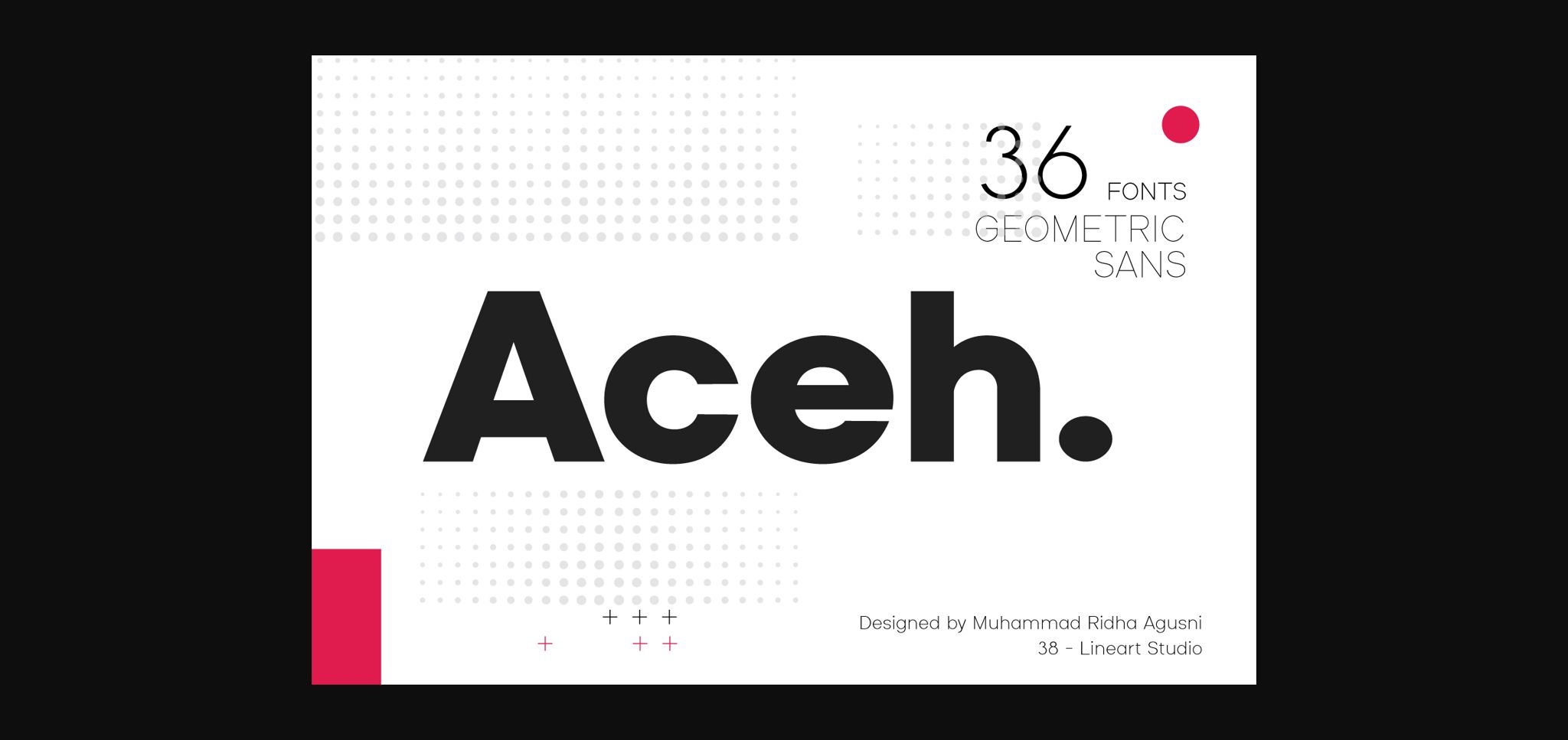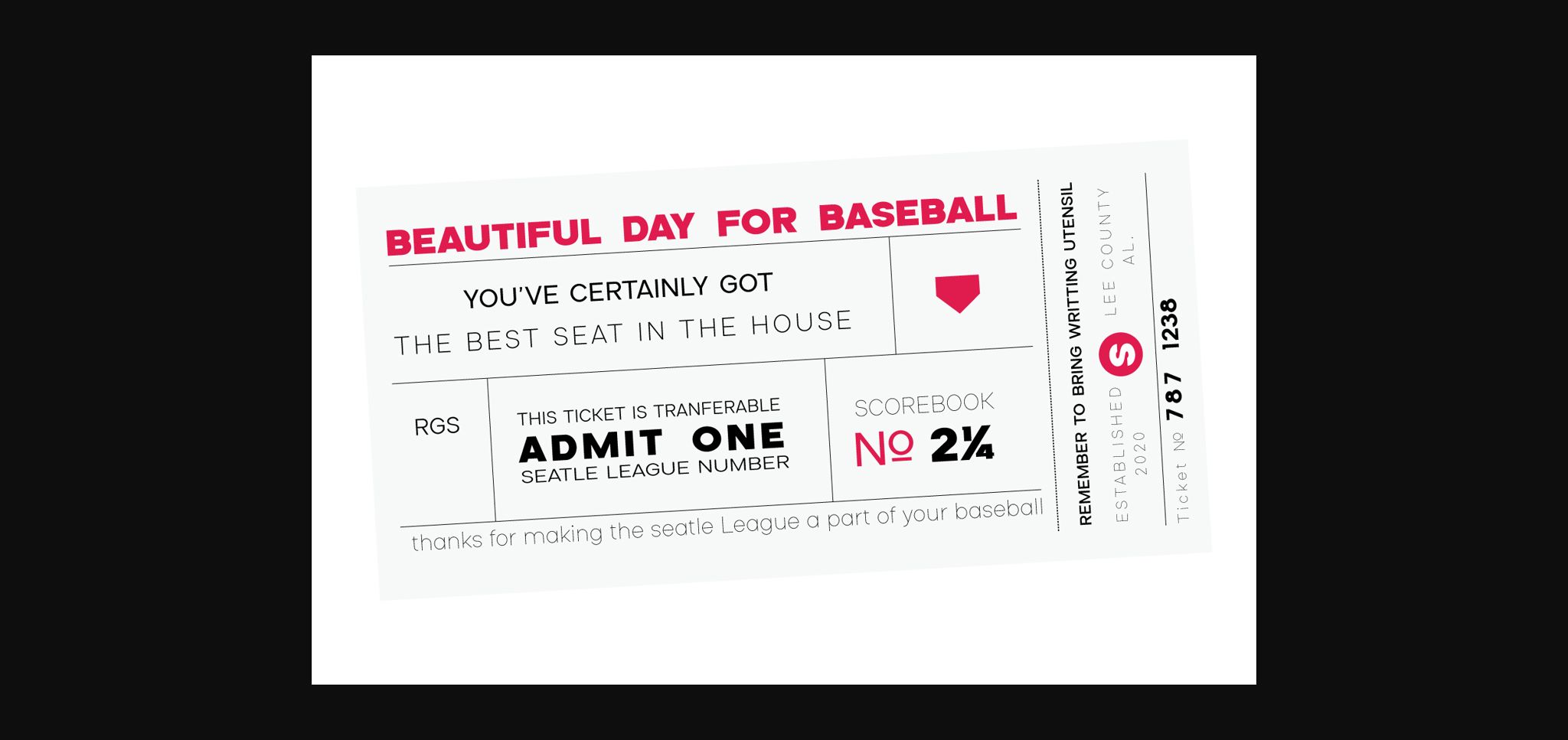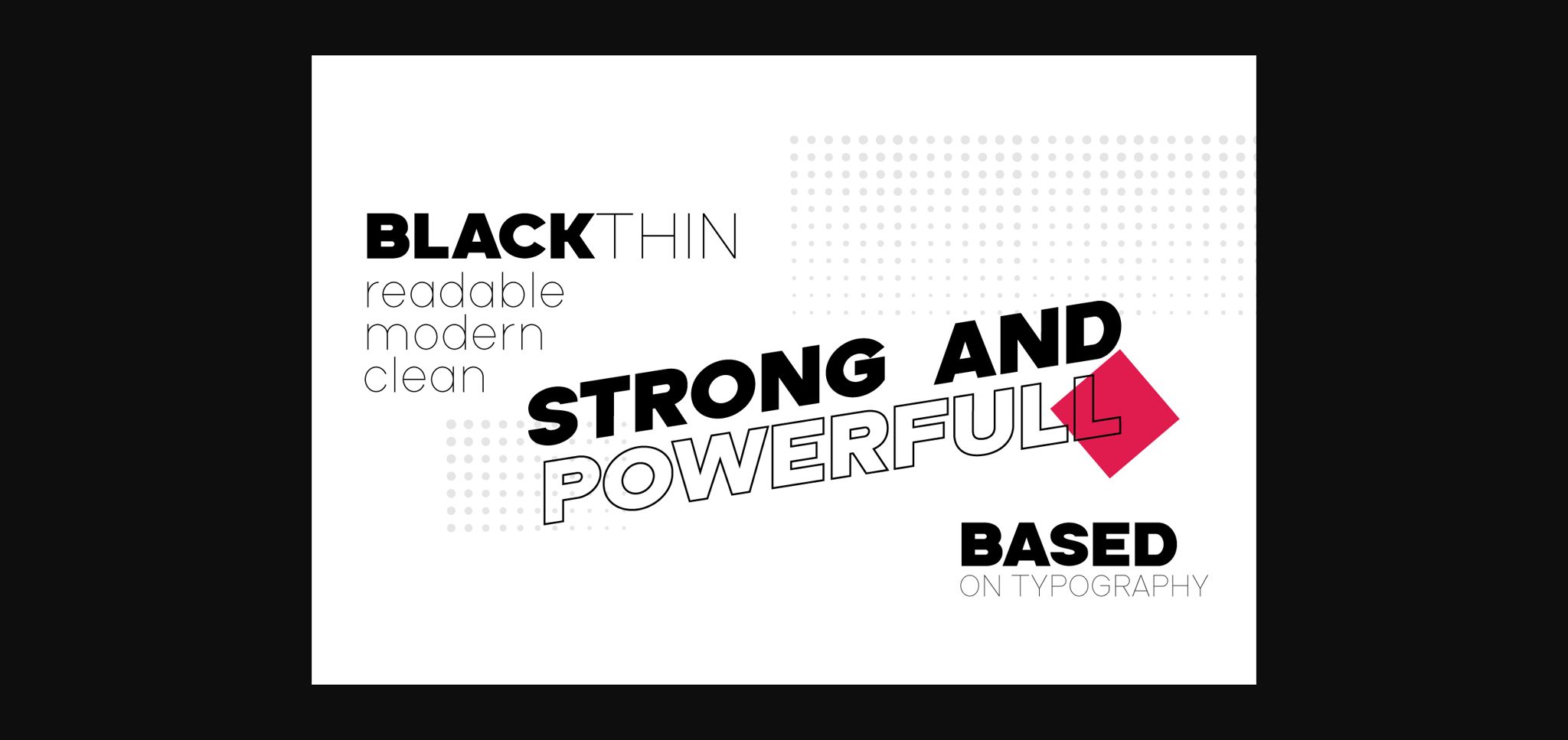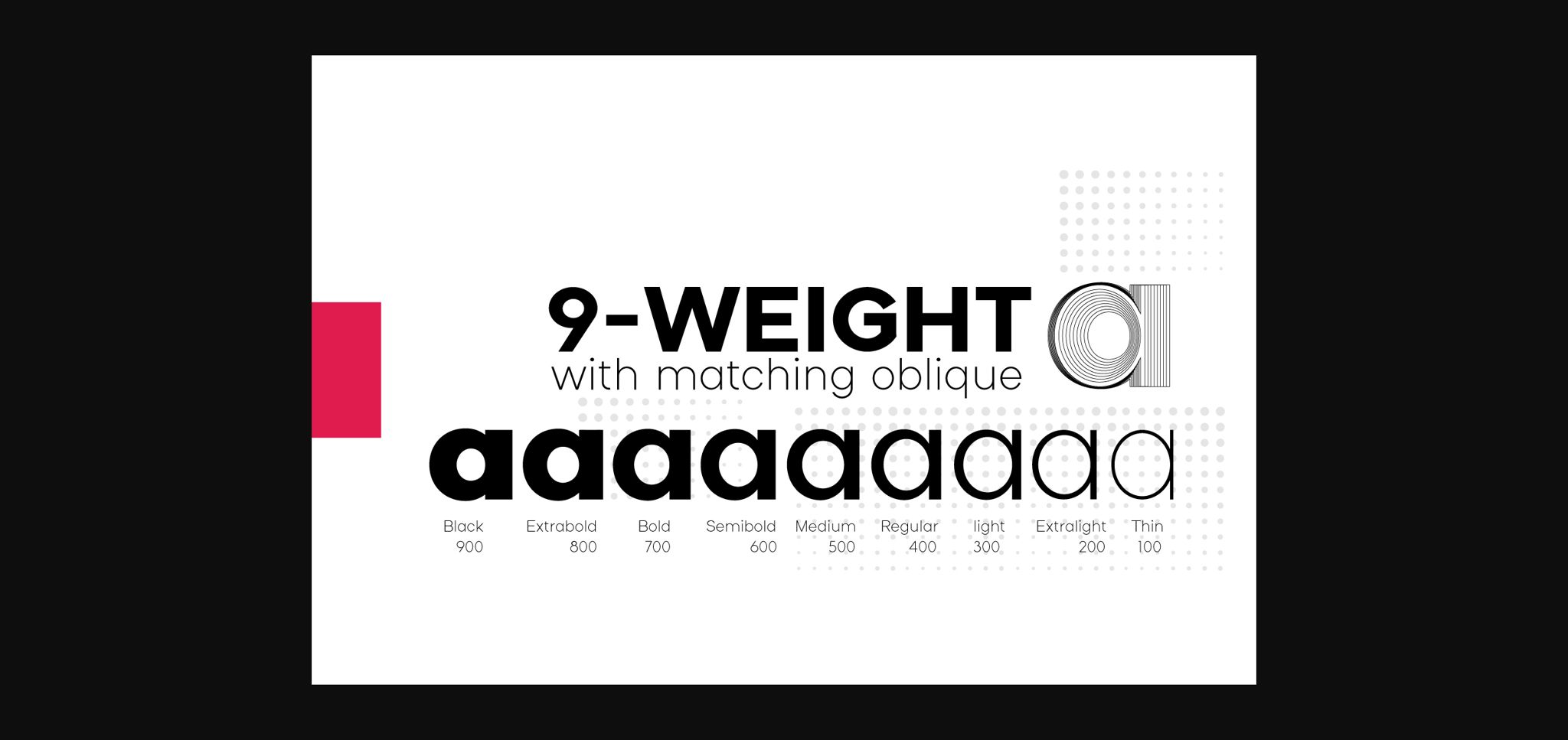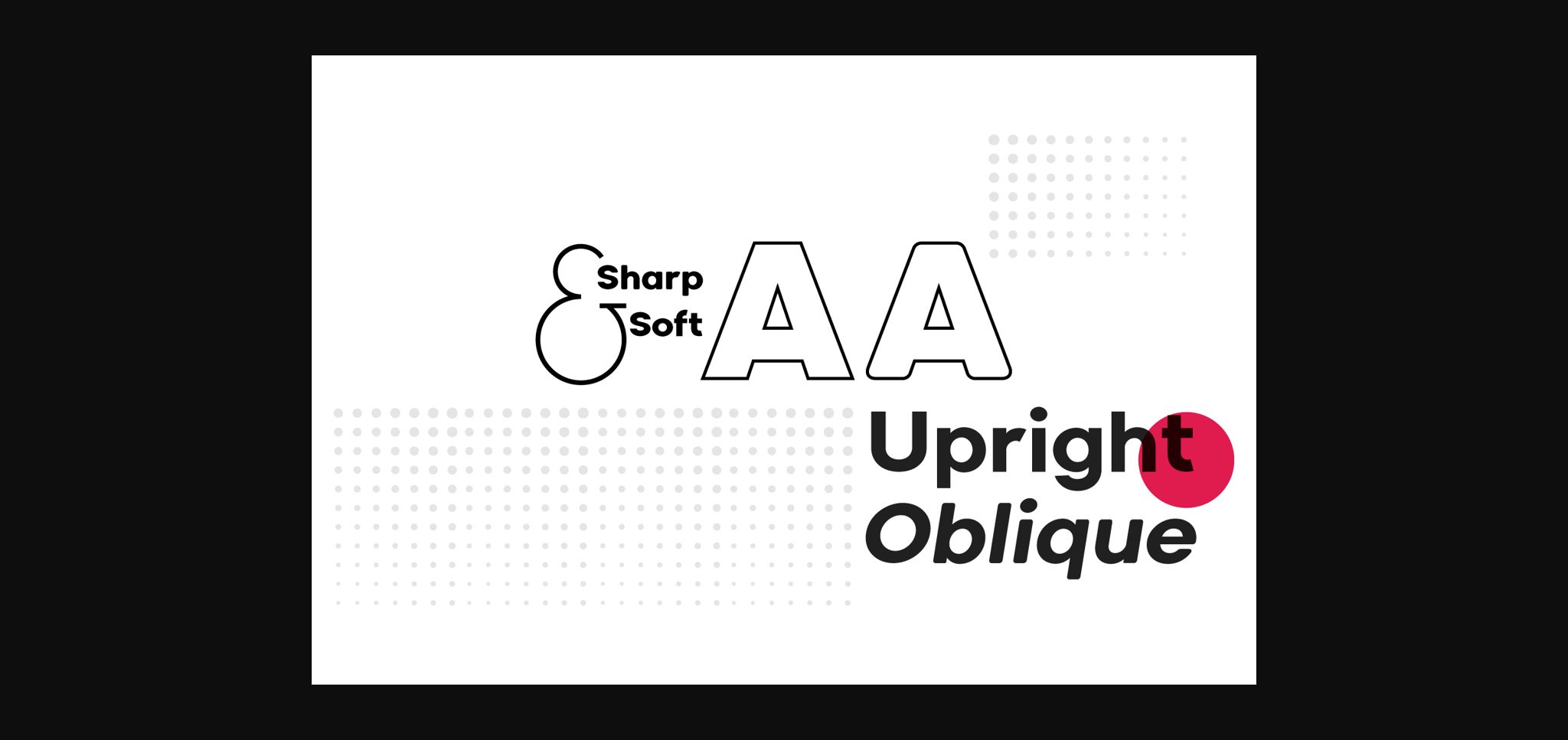
Aceh Font
About Aceh Font
Aceh is a minimal and simple lettered sans serif font. Incredibly versatile, this font fits a wide variety of designs. Add it to your most creative ideas and notice how it makes them come alive.